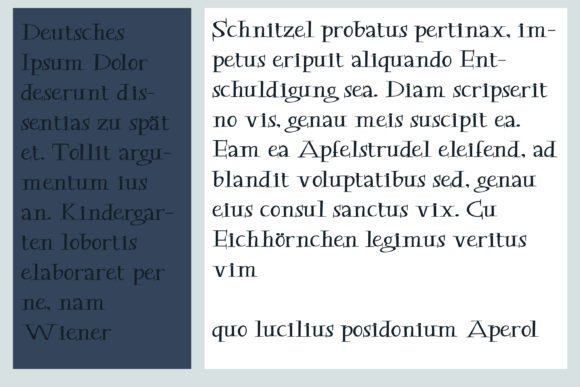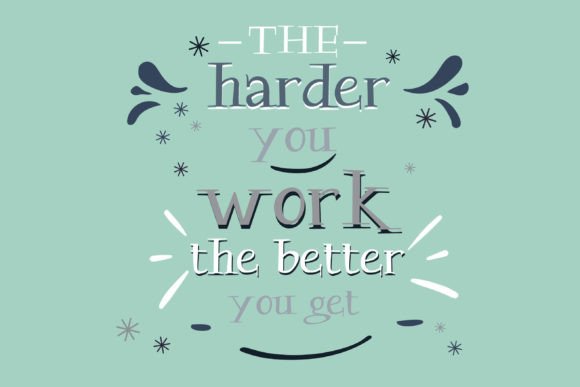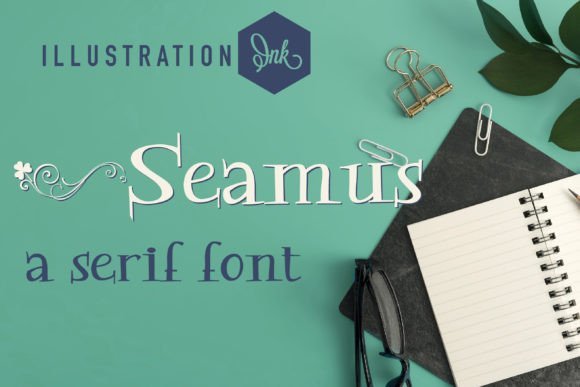
Introduction to Seamus Font
This hand-crafted font has extra elongated serifs throughout.
Access swirly shamrock designs when you type the greater than and less than glyphs .
Seamus Font offers exceptional quality and versatility, making it a valuable addition to your design toolkit. Whether you’re creating for personal projects or commercial use, Seamus Font delivers professional results.